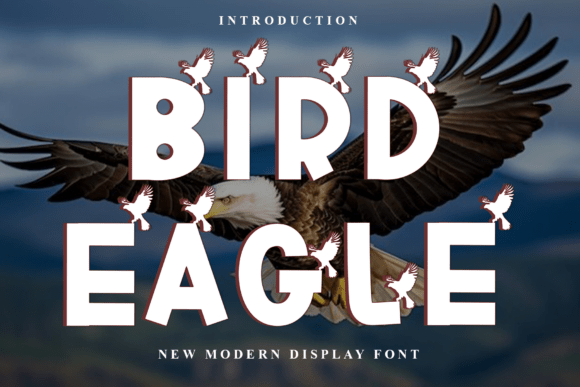
The Magic of the Holiday Season: Introducing Bird Eagle Font
As the snowflakes start to fall and the twinkling lights adorn the streets, I find myself searching for the perfect font to capture the essence of the holiday season. It’s that time of the year when typography comes alive, and the right font can make all the difference in spreading joy and cheer. And that’s exactly what Bird Eagle Font is all about – adding a touch of enchantment to your designs and bringing a festive feel to your holiday projects.
With its decorative elements and whimsical flair, Bird Eagle Font is the perfect addition to any designer’s toolkit. Whether you’re working on greeting cards, gift tags, or holiday-themed projects, this font brings a cheerful and nostalgic ambiance to your words. Its PUA encoding makes it easy to access all the amazing glyphs and ligatures, taking your typography to the next level.
Bird Eagle Font Key Features
- Unique Characteristics: The Bird Eagle Font features a distinctive blend of modern and traditional design elements, with intricate details and ornate flourishes that evoke a sense of elegance and sophistication.
Bird Eagle Font Review
Overall, I was really excited to dive into the Bird Eagle Font, and I must say, it has its moments. ✨ Here are some of the things that I think work well:
- Unique style: The Bird Eagle Font has a distinct and quirky feel that can add a lot of personality to a design.
- High-resolution images: The font’s high-resolution images make it perfect for use in large-scale applications like billboards or signage.
- Extensive language support: The font supports a wide range of languages, making it a great choice for international designs.
However, like any font, it’s not without its limitations. ⚠️ Here are some of the things that I think could be improved:
- Limited legibility: At smaller font sizes, the Bird Eagle Font can become difficult to read, which may limit its use in certain applications.
- No bold or italic variants: The font only comes in a single weight, which may make it less versatile than some other fonts.
- May not be suitable for all designs: The font’s unique style may not be the best fit for all designs, particularly those that require a more formal or traditional look.
Overall, I think the Bird Eagle Font is a solid choice for designers looking for a unique and eye-catching font. While it may have some limitations, its strengths make it a great option for the right projects.
Tips: Use Bird Eagle Font for headings and titles to add a touch of elegance to your design.
Tips: Use Bird Eagle Font for logo design, brochures, or other print materials to create a professional look.
Tips: Use Bird Eagle Font for headings, titles, and other text elements to add a touch of sophistication to your presentation or document.
Bird Eagle Font is ideal for:
– Logo design and branding
– Brochures, flyers, and other print materials
– Presentations and documents
– Web design and development